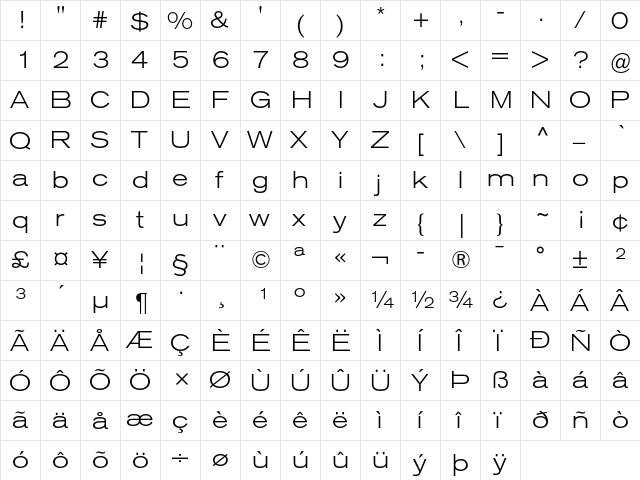
Berthold Akzidenz Grotesk Light Extended
Design Context for Berthold Akzidenz Grotesk Typeface
Berthold Akzidenz Grotesk has the quiet confidence of well-executed sans-serif typography: versatile, unobtrusive, and dependable at any size. Its slender proportions lend an understated elegance to any composition.
A natural fit for high-end product packaging, luxury brand identities, and refined web typography.
Font Pairing: Pair Berthold Akzidenz Grotesk with a medium or bold serif for headlines — the weight contrast creates an elegant, high-end feel.
Pro Tip: Use Berthold Akzidenz Grotesk with generous tracking and line-height for the most luxurious effect — light sans-serifs reward spacious, considered layouts.